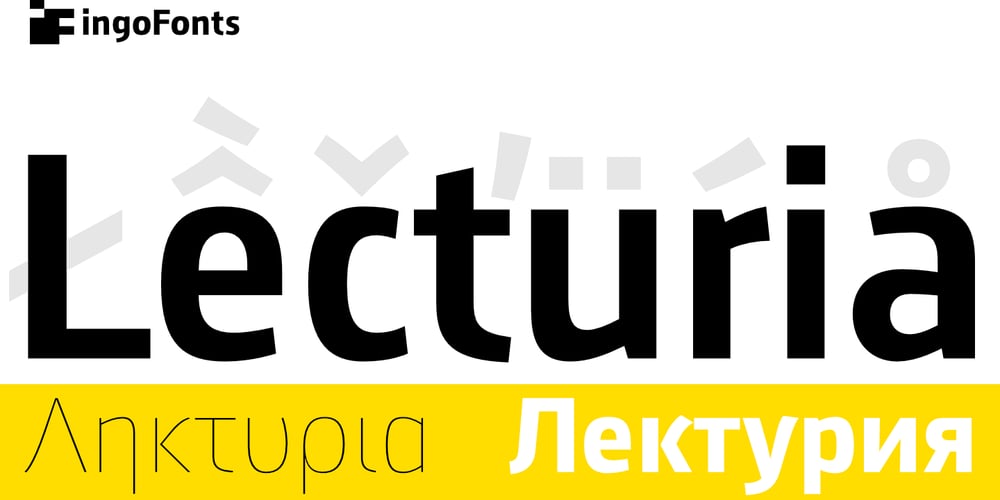
Lecturia Font Family was designed by Ingo Zimmermann and published by Ingo. Lecturia contains 17 styles and family package options. Lecturia is a modern humanist sans serif typeface.Ascending dynamic movement characterizes the structure of it’s characters — the stylistic alternates emphasize this impression.The family comprises eight weights from the most delicate “Hairline” to the strong “Bold” — each upright and italic. Using the variable font, the intermediate levels can be controlled fluently.The forms and proportions of Lecturia have been selected to be very legible as body type for longer texts. Lecturia ist still legible from a great distance or under unfavorable conditions. In large sizes as a heading, the font is very eye-catching.The shapes of the individual characters follow the “humanistic” form language of modern faces.In addition to ligatures for problematic letter combinations, it contains stylistic alternates for some characters that make the appearance even livelier. Small caps provide a restrained opportunity for emphasis.In addition, Lecturia offers several sets of numerals: proportional standard figures, lining figures, proportional oldstyle figures, non-proportional tabular figures, superscripts and subscripts, numerator and denominator to represent fractions, circled numbers.The very good legibility of Lecturia makes it the ideal typeface for information systems — a selection of directional arrows is included.